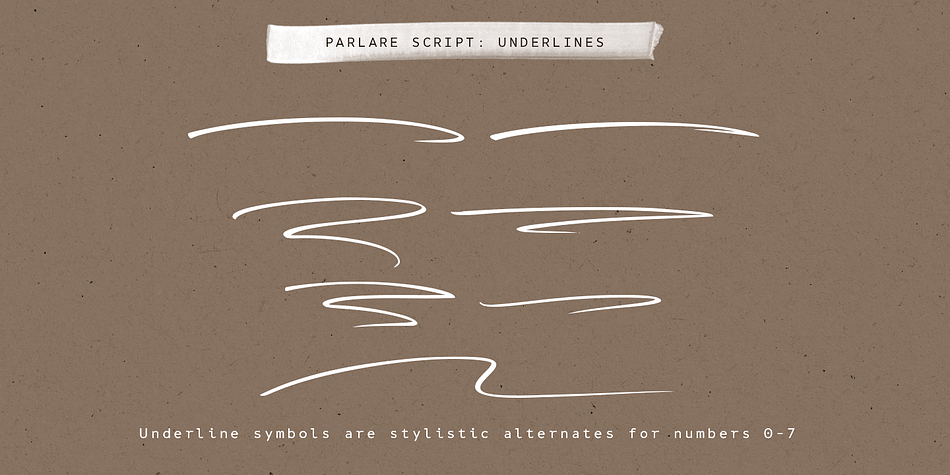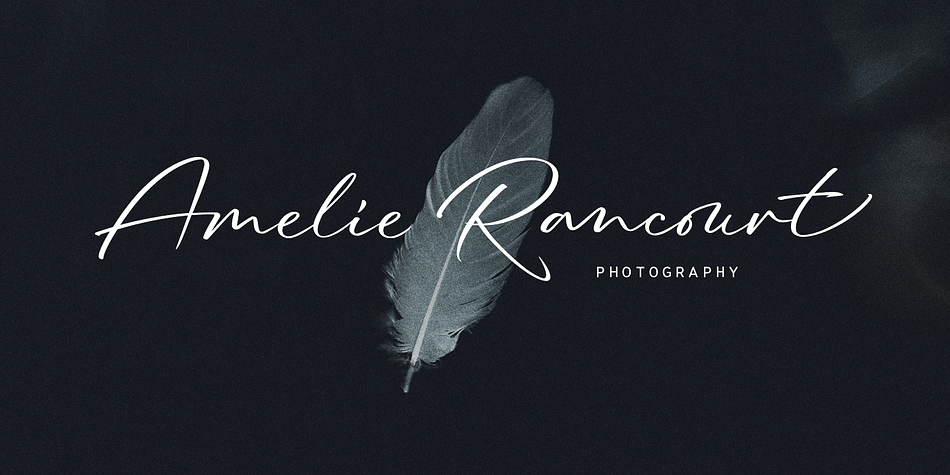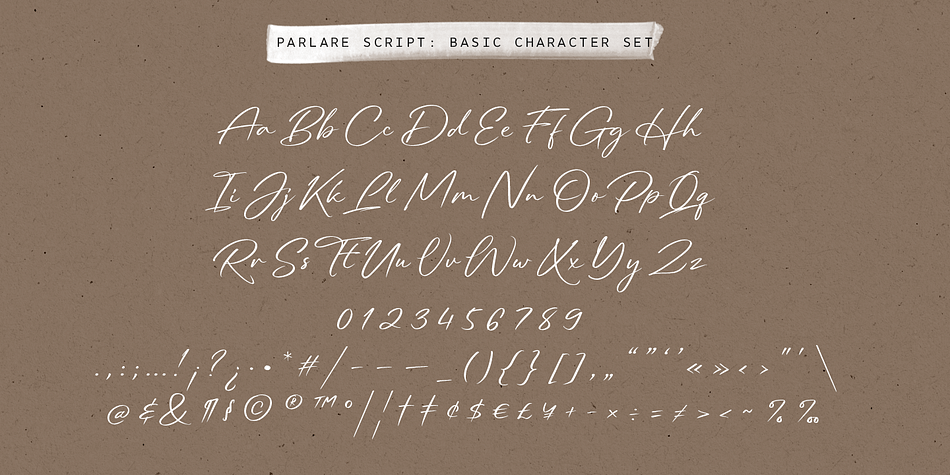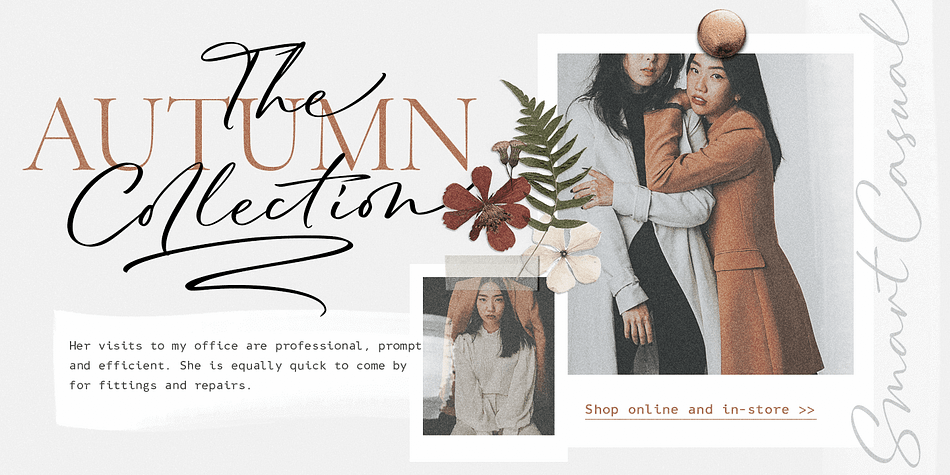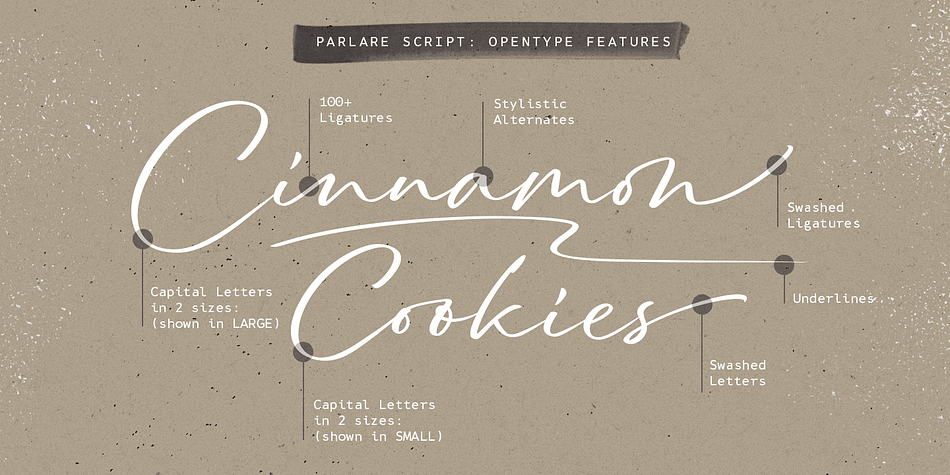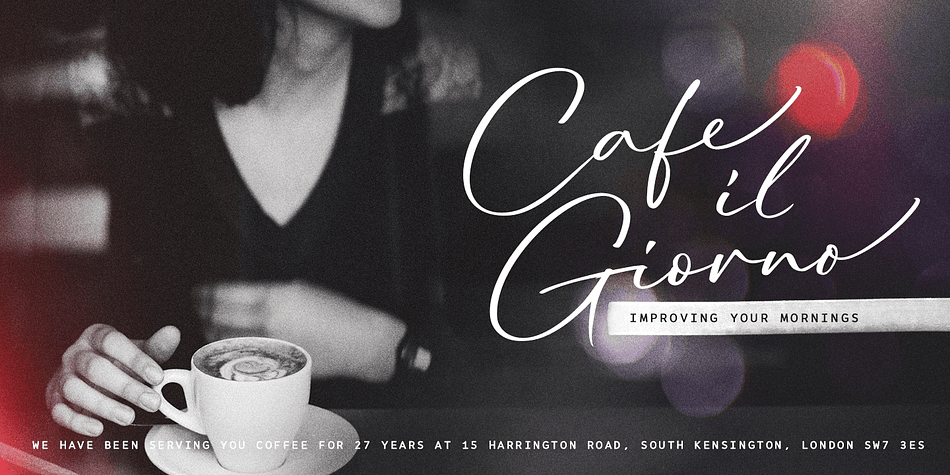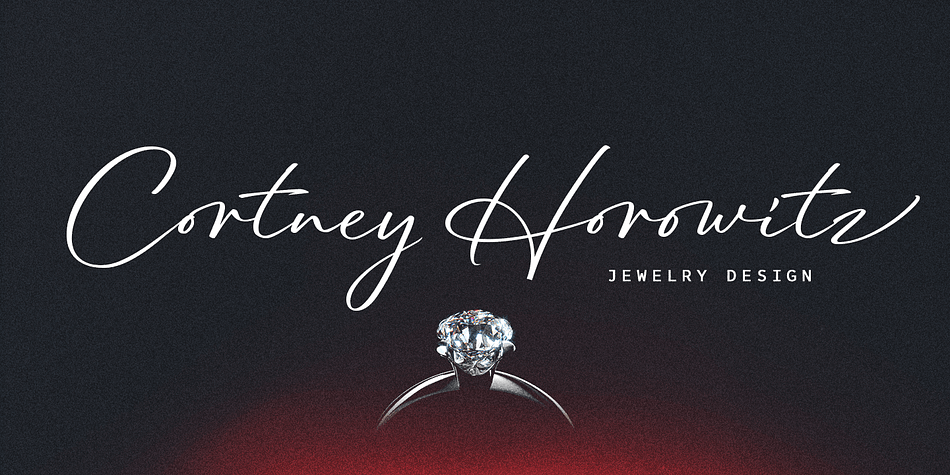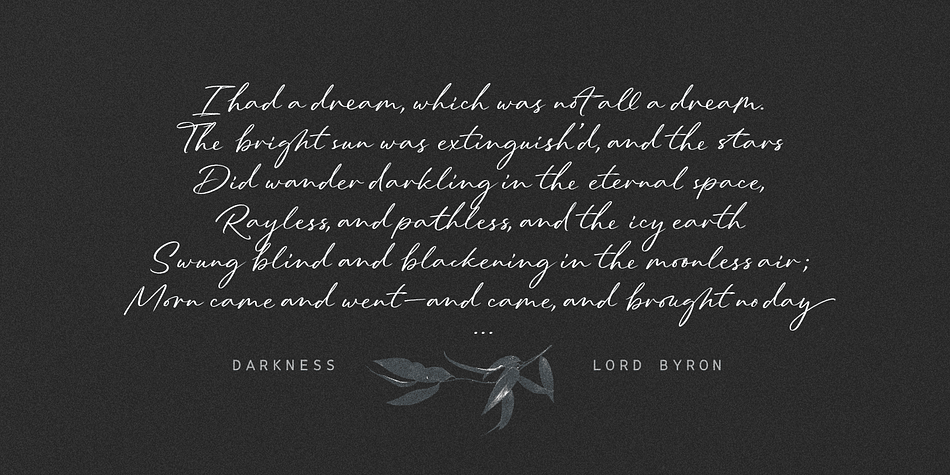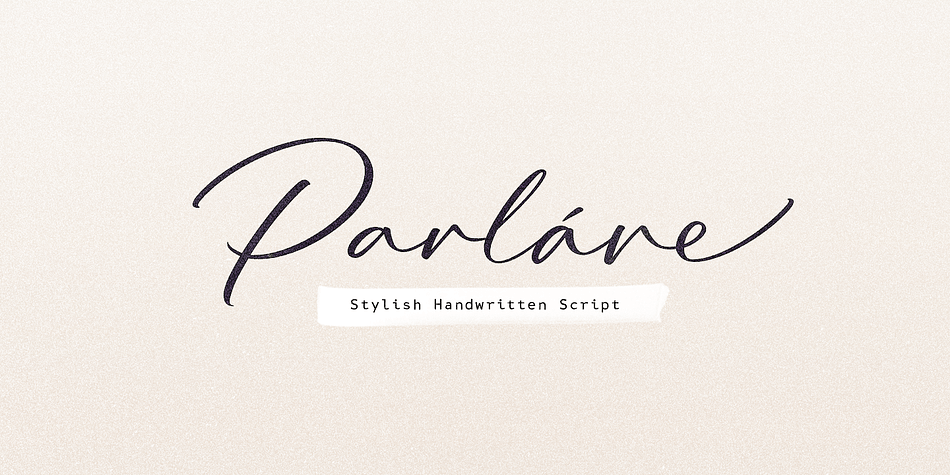
Designed by Elena Genova, Parlare is a modern calligraphy and script font published by My Creative Land.
Parlare (italian: to speak) is a modern handwritten signature script with unique organic forms.
It benefits from 2 sets of uppercase letters in different sizes, end-of-word swashes, alternates and more than 100 ligatures to mimic a realistic handwriting. As a bonus, there is also 7 underline swooshes included.
Parlare is an excellent choice if you are looking for a typeface to use for elegant branding, wedding invitations and stationary, book and album cover designs, packaging, handwritten quotes, unique social media posts, greeting cards, and so much more.